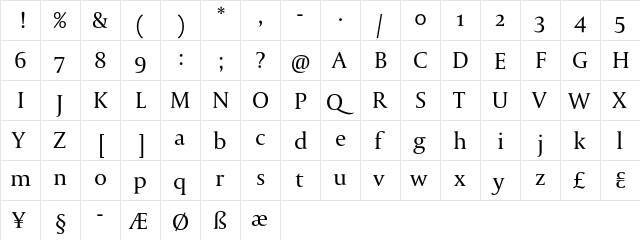
Capitolium RegularRomanOsf
Design Context for Capitolium Typeface
Capitolium offers clean, dependable letterforms without strong stylistic allegiance, making it a practical choice for designers who need flexibility.